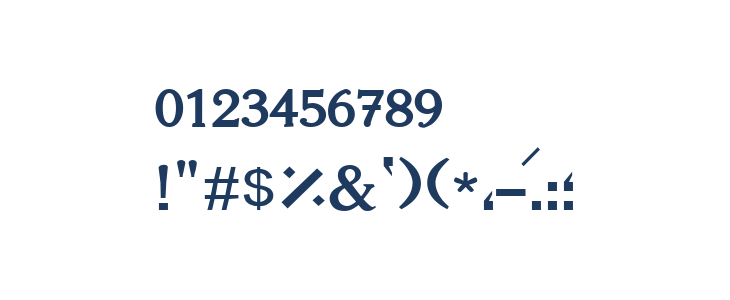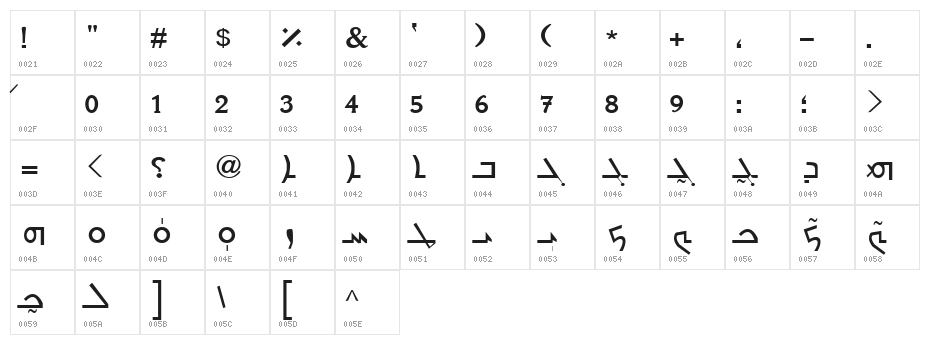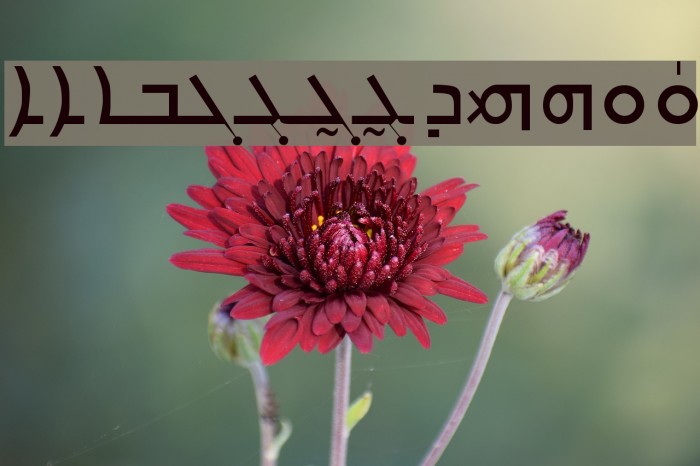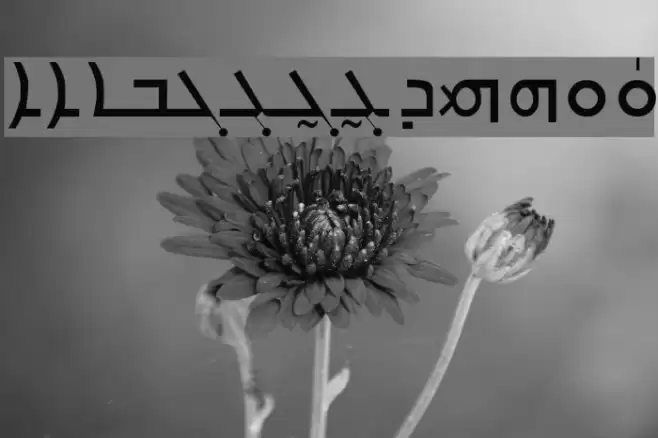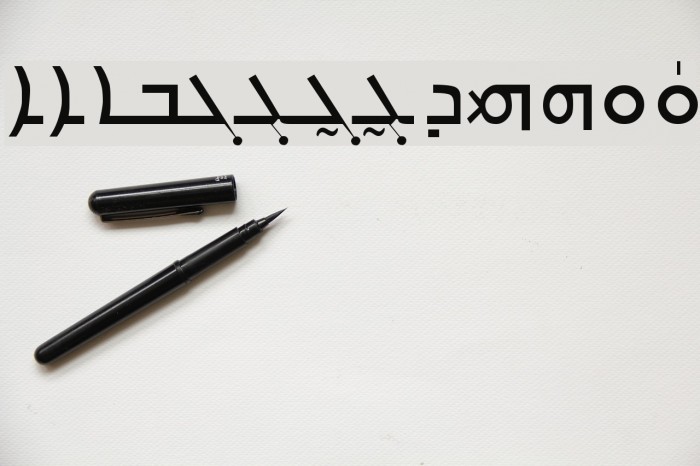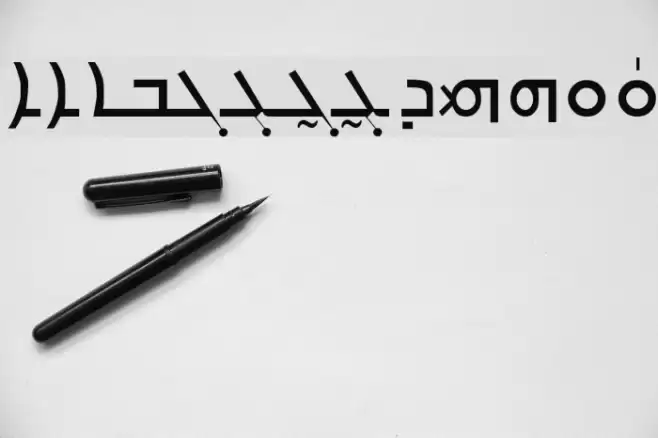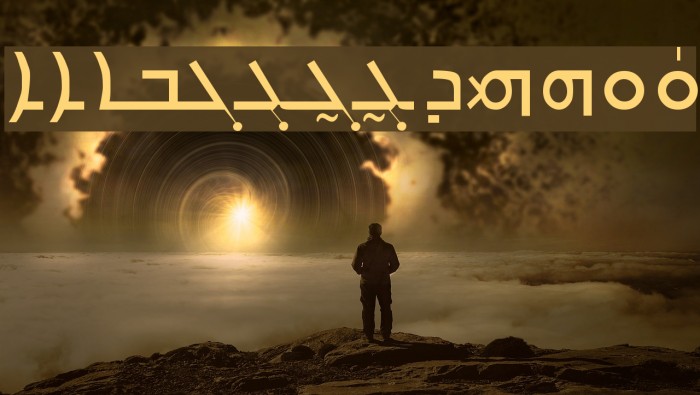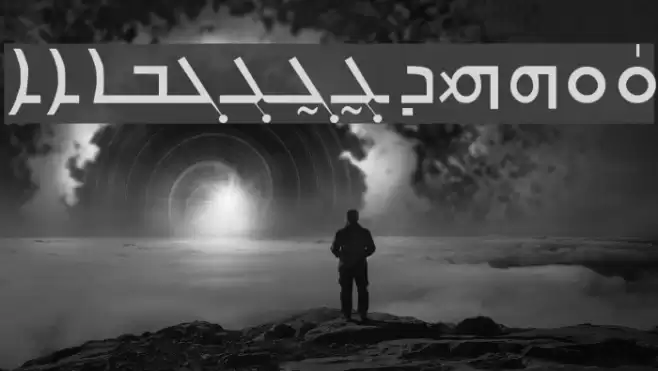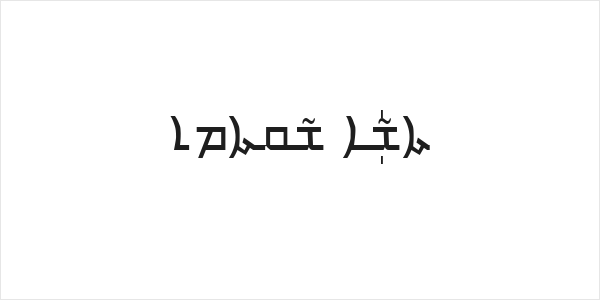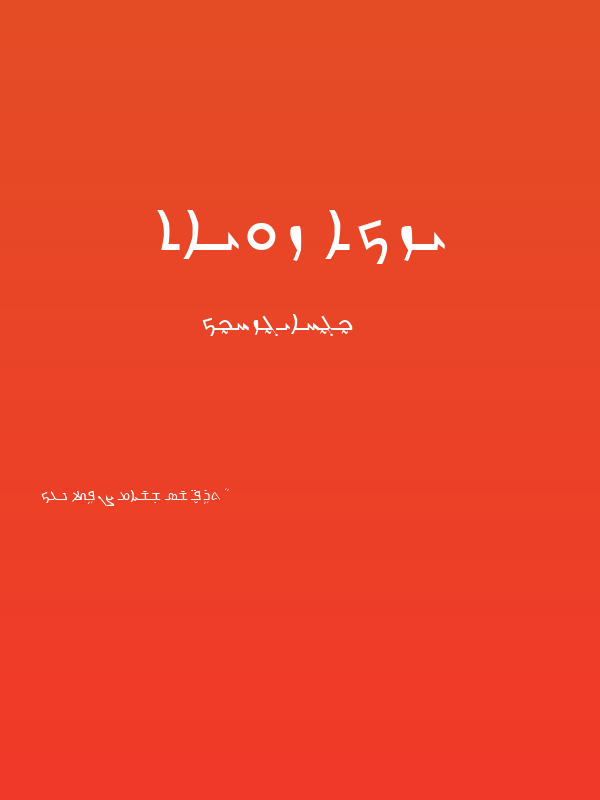
Carlo Ator Font
Carlo Ator Description
This font features a unique and decorative style, characterized by its intricate and artistic letterforms. The characters exhibit a blend of geometric and organic shapes, creating a visually striking appearance. The uppercase letters are bold and dynamic, with angular lines and distinctive curves. The lowercase letters maintain a consistent style, complementing the uppercase with their own flair. The numerals are equally stylized, offering a cohesive look across all characters. Special characters are designed with the same attention to detail, enhancing the overall aesthetic. This font is ideal for projects that require a touch of creativity and uniqueness.